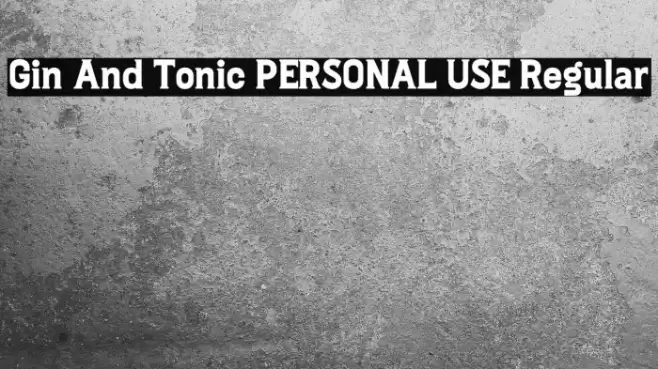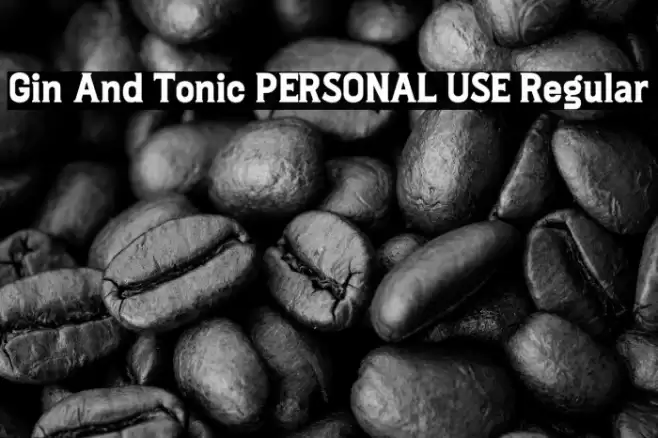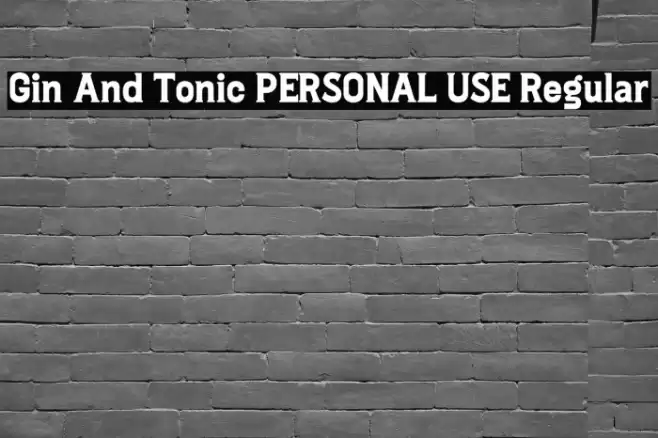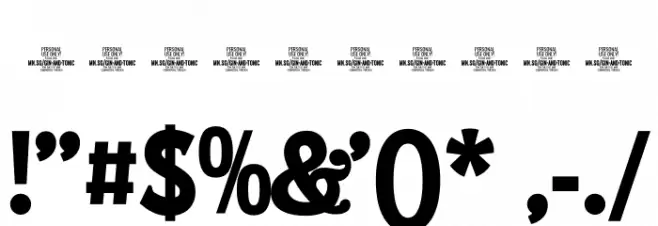
Gin And Tonic PERSONAL USE Regular Font
Gin And Tonic PERSONAL USE Regular Description
This font features bold, robust characters with a strong presence, making it ideal for impactful designs. The uppercase letters are solid and commanding, while the lowercase letters maintain a consistent weight, providing a harmonious balance. The numerals are clear and legible, suitable for various applications. Special characters are distinct and well-formed, adding versatility to the font. The overall design is modern with a hint of vintage charm, characterized by its thick strokes and minimal contrast, which enhances readability and visual appeal.
A bold, modern font with a vintage touch, featuring strong, consistent characters from Regular fonts.
- Proposed Projects: Ideal for branding, headlines, posters, and any design requiring a bold statement.